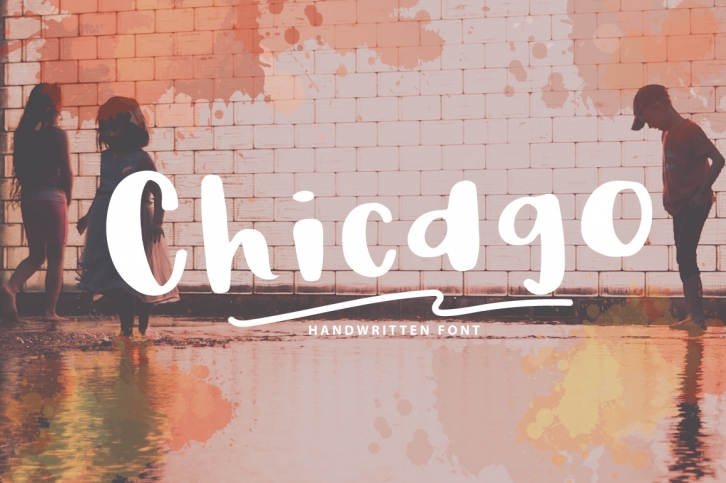
Chicago is a beautiful font that was designed by Paula Type. It's a great choice for designers and creatives who need such a font. It was released on August 17, 2018 and the file size is 14.99 MB. Chicago may give a more youthful, expressive and casual look to your project. It is a very beautiful, refined, elegant, and high-quality font.